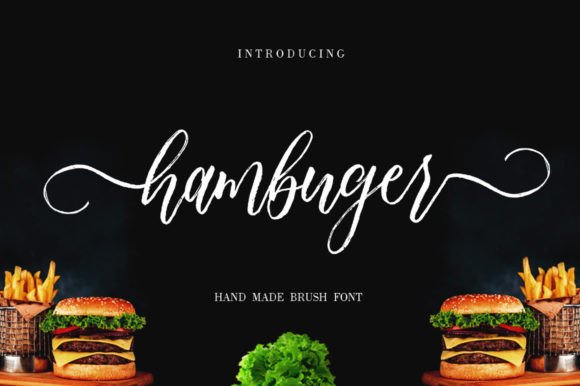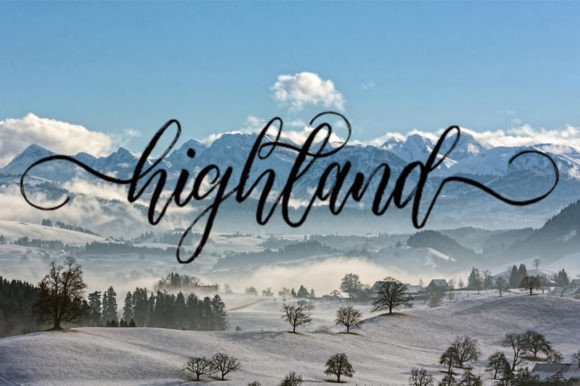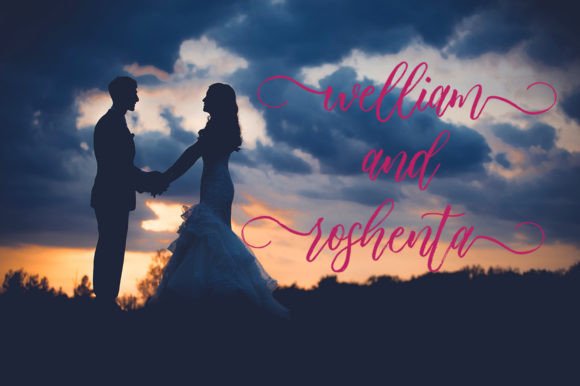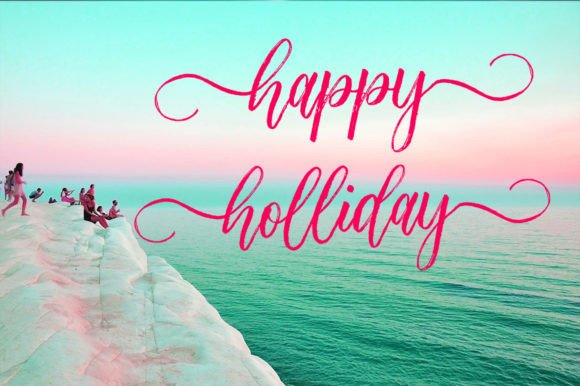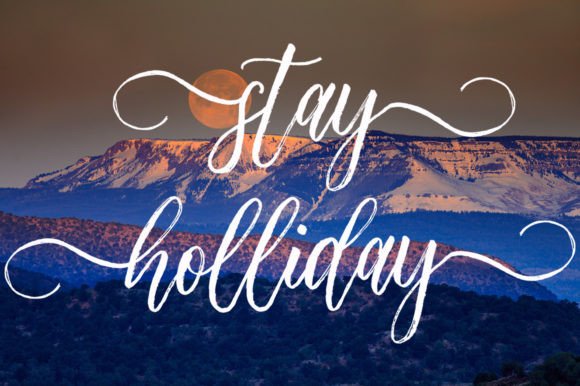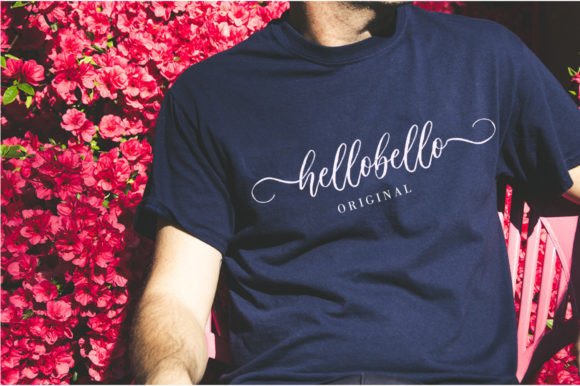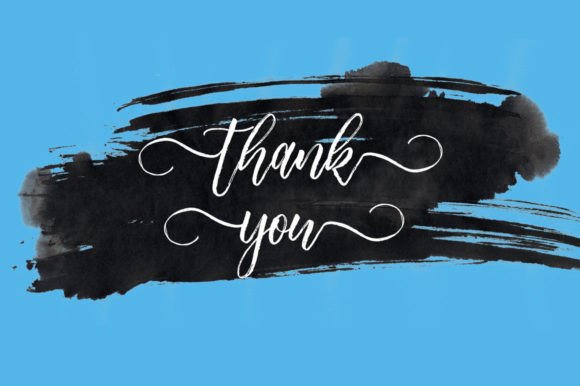
Hambuger Font
About Hambuger Font
“Hamburger” stands out as a modern and cool brush script font, offering a fresh and dynamic aesthetic. This font is not just a typographic element; it’s a versatile and stylish asset that holds the potential to elevate the visual appeal of any creation. Whether you’re working on branding, social media graphics, or any other project, “Hamburger” becomes a wonderful addition to your font library.
The modernity of “Hamburger” is evident in its brush script design. The characters carry a contemporary flair, making it a perfect choice for projects that demand a sleek and up-to-date visual language. The brush strokes add a dynamic and energetic quality to the font, contributing to its cool and stylish demeanor.
Coolness is a defining feature of “Hamburger.” The font exudes a sense of trendiness and sophistication, making it suitable for a variety of design contexts. Whether applied to logos, headings, or promotional materials, “Hamburger” brings a cool and captivating vibe to the forefront.
Brush script fonts, by nature, offer a sense of authenticity and handcrafted charm. “Hamburger” is no exception. The brush strokes give it an organic and personalized feel, making it a versatile choice for designs that aim to convey a sense of individuality and creativity.
The versatility of “Hamburger” allows it to seamlessly integrate into a wide range of topics and themes. Whether your project is related to lifestyle, fashion, or technology, this font proves to be an adaptable design element, enhancing the overall aesthetic with its modern and cool characteristics.
Adding “Hamburger” to your font library goes beyond having a typographic resource; it’s a strategic move to infuse your designs with a contemporary and stylish edge. The font becomes a valuable asset, ready to enhance any creation with its modernity, coolness, and brush script allure.